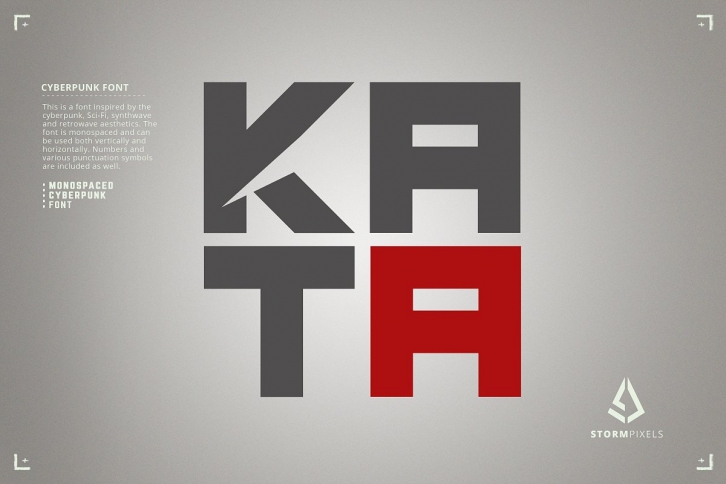
This is a monospaced OTF cyberpunk font designed for concept artists and other designers who wants to quickly insert some bold, squard, hard shaped font into their designs. As you can see from the previews, this font can be used both vertically (like in Japanese style shop signs) or horizontally, and you can also create blocks of texts separated by colors.
This font can be used in many designs ranging from retro, cyberpunk, synthwave, dystopian future, Sci-fi, and anything from futuristic movie posters with robos and stuff like that. This font is also good to use for main headers for cyberpunk, synthwave, retrowave posters and flyers or music cd covers.